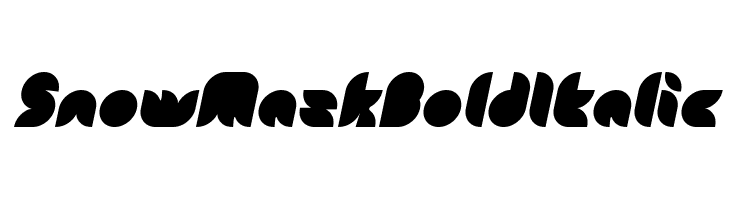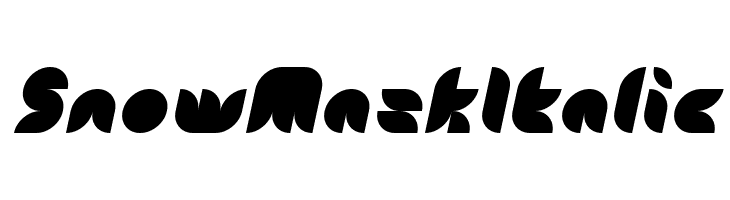
A bold, rounded font with a strong, cohesive presence.
A playful, hand-drawn font with a whimsical and friendly style.
A playful, hand-drawn style font with bold, rounded characters.
A playful, hand-drawn font with bold, rounded strokes and a whimsical style.
A playful, hand-drawn font with bold strokes and a whimsical style.